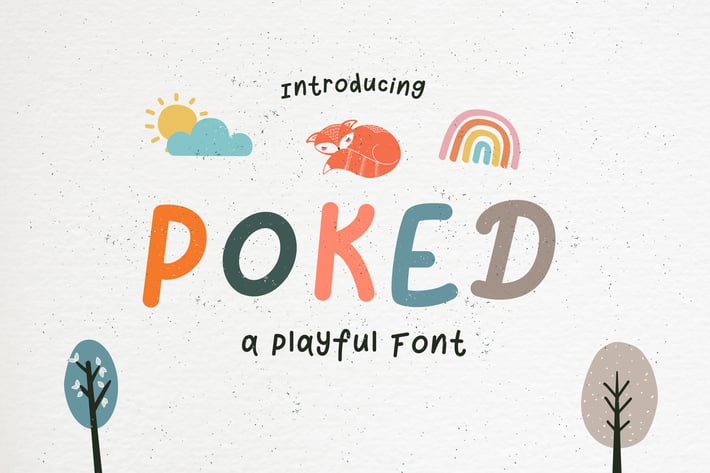
Poked - Fun and Playful Font
Poked is a playful and cute display font. It embodies joy and authenticity and is the perfect choice for any children theme activity or school project.